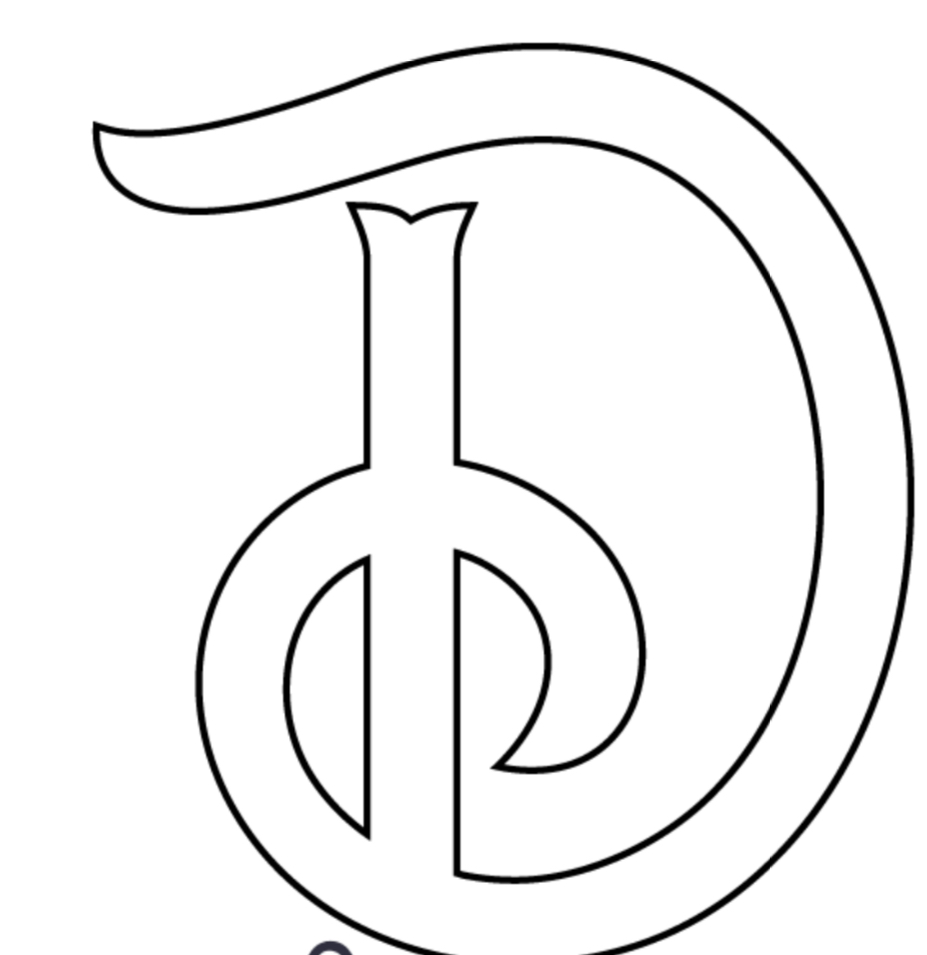
I have been searching all over for this unique font and can't seem to find it anywhere. Has anyone ever seen anything like this? I'm trying to use it for a font to color in letters for Journaling.
Blue Spirits (free for personal use only).